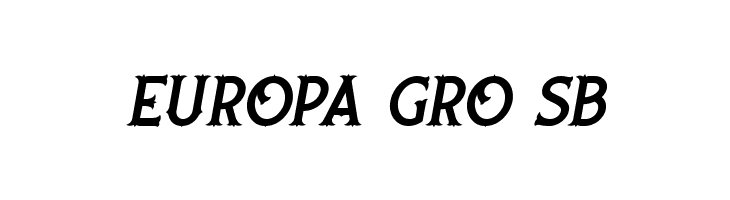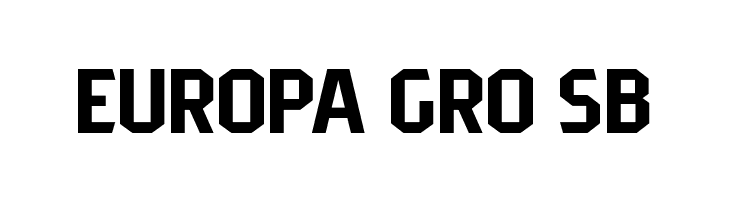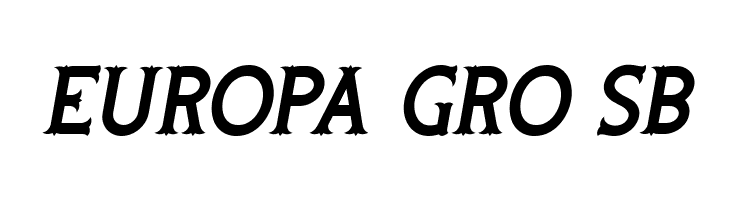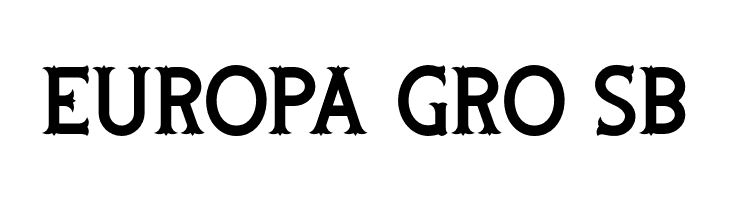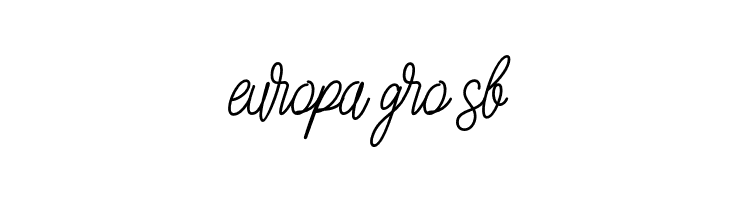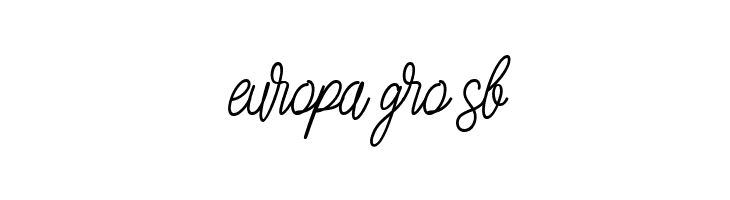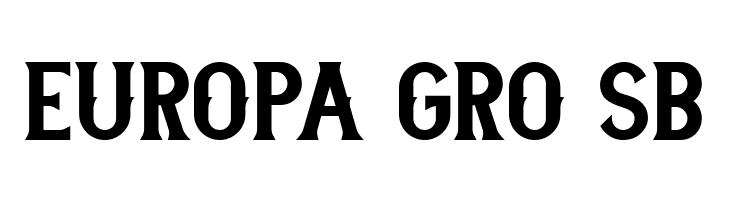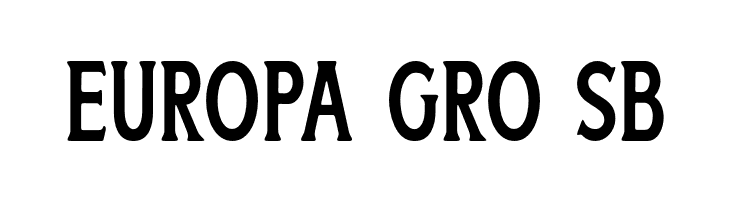
A bold, italic serif font with high contrast and decorative elements.
A bold, geometric font with strong, angular lines and a modern aesthetic.
A bold, decorative italic font with sharp serifs and dynamic style.
A bold, decorative font with sharp serifs and intricate details.
A lively, cursive script font with elegant, connected letters and a dynamic flow.
A casual, elegant script font with smooth, connected letters and moderate stroke thickness.
A bold, decorative font with vintage flair and ornate details.
A jagged, eerie font with distressed, twisted characters ideal for horror themes.
A bold serif font with angular serifs and a modern twist.